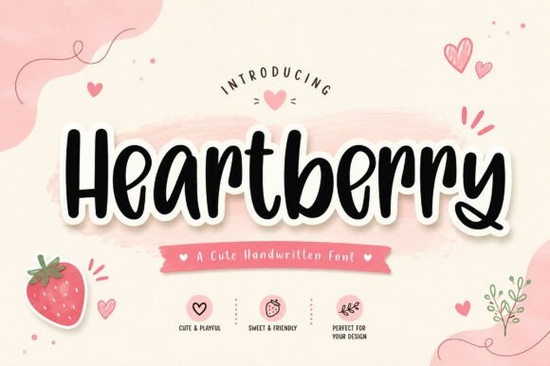
If you've been searching for a Heartberry Font review to help you decide whether it's the right fit for your next project, you're in the right place. This cute handwritten script font is designed for anyone who wants their designs to feel warm, personal, and approachable from greeting card makers to small business owners building a brand from scratch. Let's look at what it offers, who it's best for, and how it stacks up against similar fonts.
What kind of style does Heartberry have?
Heartberry is a handwritten script font with playful, rounded letterforms and smooth curves. It leans toward the sweet and charming side rather than elegant or formal. Think of it as the kind of font you'd use on a cupcake box, a Valentine's card, or a friendly logo for a bakery not on a luxury perfume label or a law firm's website.
The lowercase letters have a natural flow that mimics real handwriting, while the uppercase letters add a bit more structure. Together, they create a balanced look that's easy to read at different sizes, which is something not every script font can claim.
What projects is Heartberry actually good for?
This font works well across a wide range of creative projects. Here are some of the most popular uses:
- Greeting cards birthday, holiday, thank-you, and get-well cards
- Wedding invitations and save-the-date designs
- Valentine's Day projects stickers, tags, love letters, and party decor
- Social media graphics quotes, sale announcements, and story templates
- Product packaging especially for handmade goods, candles, soaps, and baked treats
- T-shirt and merchandise designs for print-on-demand sellers
- Children's products book covers, activity sheets, nursery wall art
- Branding for small businesses logos, business cards, and shop signage
If you run a handmade business on Etsy or sell POD products, Heartberry can give your storefront a consistent, friendly look without feeling overly polished or corporate.
Does Heartberry support other languages and special characters?
Yes. Heartberry includes uppercase and lowercase letters, numbers, punctuation, and multilingual support. This means it can handle characters used in many European and Latin-based languages. It's also PUA encoded, so you can access all glyphs easily through character maps or design software like Canva, Adobe Illustrator, Cricut Design Space, and Silhouette Studio.
This is particularly helpful if you sell to international customers or create designs in languages beyond English.
How does Heartberry compare to other handwritten script fonts?
There are plenty of handwritten fonts out there, so how does Heartberry fit in? It sits in a sweet spot pun intended between casual and polished. It's not as rough or grungy as some brush fonts, and it's not as formal as traditional calligraphy scripts.
If you already love fonts like Sweet Apricot or Sallintine, you'll likely enjoy Heartberry's similar warmth. For something with a slightly different rhythm, Cralione offers a flowing script style that pairs nicely as a complementary font. You might also check out the Reflect handwritten font if you want something with a more relaxed, casual vibe for everyday designs.
For wedding-specific projects, browsing a wedding font bundle can save you time and money, especially if you need multiple typefaces that work together harmoniously.
Does Heartberry work well with Cricut and Silhouette machines?
Absolutely. Heartberry's smooth, connected letterforms cut cleanly on vinyl, cardstock, and heat transfer material. Because it's easy to use and PUA encoded, you won't run into issues accessing characters in your cutting machine's software. This makes it a solid choice for crafters who sell handmade stickers, labels, and personalized gifts.
That said, always do a test cut first especially with small text to make sure your settings are dialed in for the specific material you're using.
Where can you get Heartberry?
Heartberry is available on Creative Fabrica, a popular marketplace for fonts, graphics, and craft files. Depending on your subscription plan, you may be able to download it as part of your membership, which is a great deal if you regularly use new fonts and design assets.
Quick checklist before you buy
- Think about what you'll use it for cards, branding, POD, or crafting
- Check that it supports the languages and characters you need
- Test it in your preferred design software to see how it looks at your target size
- Consider pairing it with a simple sans-serif font for body text to keep your layouts balanced
Tip: Before finalizing any design, print or preview it at the actual size you plan to use. Handwritten fonts can look beautiful on screen but feel too tight or too loose at certain scales. A quick preview saves you from reprints and wasted materials.